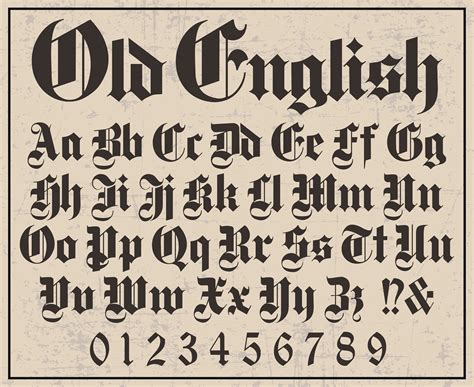
Old School Fonts Are Making A Comeback In 2023
It's 2023, and you'd think that in this day and age of technology, everything old would be obsolete. But that's not the case when it comes to fonts. Old school fonts have been making a comeback this year, and they are becoming increasingly popular. This resurgence is due to the fact that these vintage fonts are perfect for creating a nostalgic look and feel. Whether you are creating a website, logo, or print material, old school fonts can add a unique and classic touch.
What Are Old School Fonts?
Old school fonts are those fonts that were created in the 19th and early 20th centuries. These fonts can be considered as the predecessors to modern fonts. They often feature unique, intricate designs and a vintage aesthetic. Examples of these fonts include Courier, Baskerville, Caslon, and Garamond. Each of these fonts has a distinct personality and can be used to create a unique look and feel.
Uses of Old School Fonts in 2023
Old school fonts can be used in a variety of ways in the modern world. They are perfect for creating a retro look and feel for a website, logo, or print material. They can also be used to create a classic and timeless aesthetic for a brand or product. Additionally, old school fonts are often used to evoke a sense of nostalgia and can be used to create a strong emotional connection with the audience.
Benefits of Using Old School Fonts
Old school fonts have a number of benefits that make them desirable in the modern world. They are perfect for creating a unique and timeless look and feel, and they can be used to evoke a strong emotional connection with the audience. Additionally, they are often easier to read than modern fonts, making them perfect for creating a text-based design. Finally, many of these fonts are free to use, making them a great choice for those on a budget.
Popular Old School Fonts in 2023
As the popularity of old school fonts has grown, so has the selection. There are now dozens of fonts to choose from, and each one has its own unique personality. Some of the most popular fonts in 2023 include Bembo, Futura, Garamond, and Goudy. Each of these fonts has its own distinct look and feel, and can be used to create a unique and timeless design.
Old school fonts are making a comeback in 2023, and for good reason. They are perfect for creating a unique and timeless look and feel, and can be used to evoke a strong emotional connection with the audience. Additionally, many of these fonts are free to use, making them a great choice for those on a budget. Whether you are creating a website, logo, or print material, old school fonts can be the perfect choice.